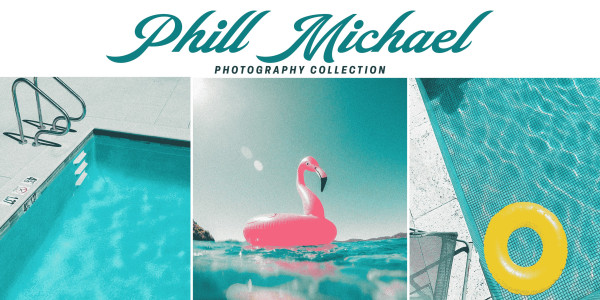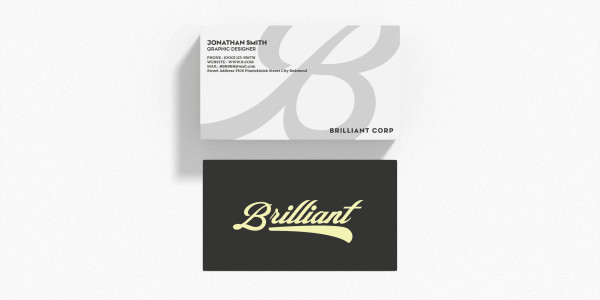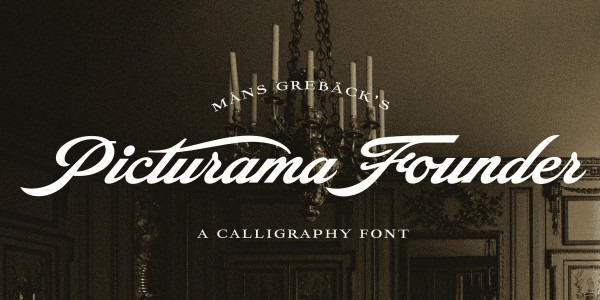
Picturama Alternate Font
Picturama Alternate Font is a beautiful script font that elegantly bridges the gap between time-honored formality and contemporary innovation.
Every curve and connection in this formal calligraphy type speaks of finesse, flowing with an unmatched grace reminiscent of vintage labels or classic vinyl covers.